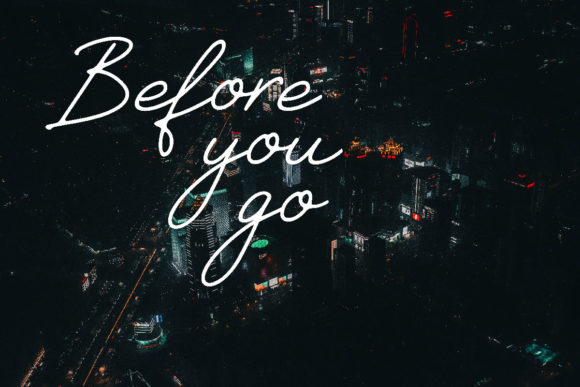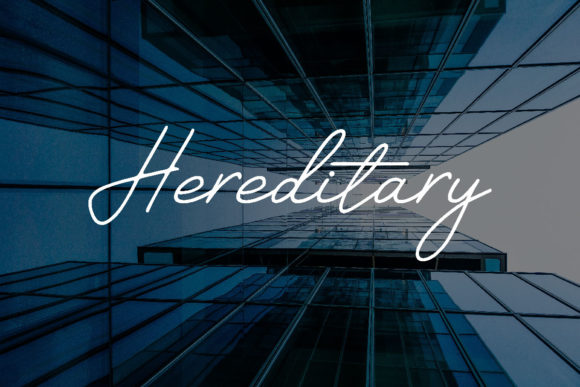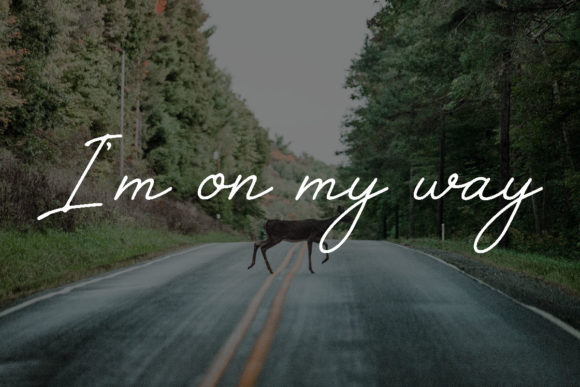
Introduction to Grabes Font Font
Fonts play a crucial role in design, and the Grabes Font font is a typeface that brings both character and versatility to any project. Whether you’re working on a branding project, a website, or a print design, the Grabes Font font offers a unique style that can elevate your work.
Grabes is a cute and delicate script with a lovely twist.
Fall in love with its romantic charm and add it to wedding invitations, stationery, photography, social media posts, product packaging, greeting cards, and much more .
Key Features of Grabes Font Font
Why Choose Grabes Font Font?
The Grabes Font font is more than just a typeface – it’s a design tool that helps you communicate your message with style and clarity. Its unique character set and versatile design make it suitable for a wide range of applications, from elegant invitations to bold headlines.
With its carefully crafted letterforms and balanced proportions, the Grabes Font font ensures readability and visual appeal across all mediums.
What makes Grabes Font font special?
The Grabes Font font stands out with its unique design, exceptional readability, and versatility across various design applications.